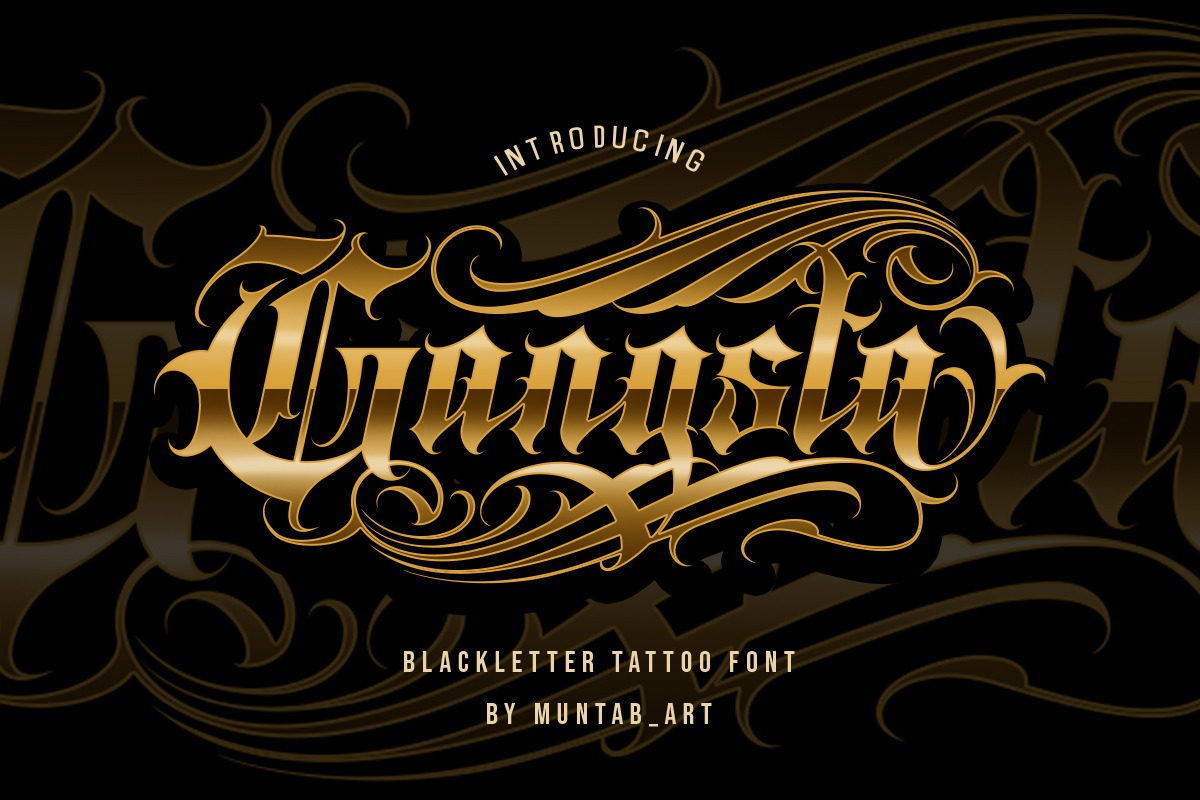
Gangsta Typeface | Tattoo Fonts
Introducing of our new product the name Gangsta Typeface | Blackletter Tattoo Fonts. Blackletter with Tattoo style + ornaments perfect for tattoo design, logo studio tattoo, shirt design, poster, branding, etc.